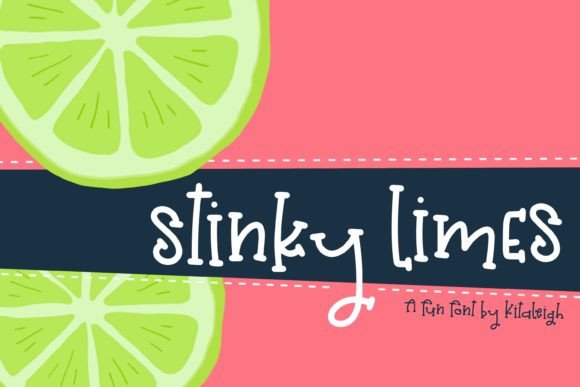
Introducing Stinky Limes Font, a captivating and creative serif font designed by Kitaleigh LLC. This hand-lettered gem is the perfect choice for anyone looking to infuse their designs with a unique and charming touch. With its delightful quirks and personality, Stinky Limes Font will take your projects to a whole new level.
Stand out from the crowd and give your designs an edge with this eye-catching serif font. Whether you're working on a branding project, creating eye-catching posters, or designing captivating social media graphics, Stinky Limes Font is the secret ingredient that will make your work shine.
One of the standout features of this font is its PUA encoding, allowing you to effortlessly access all the stunning glyphs and swashes it offers. Get creative and let your imagination run wild with the endless possibilities this font provides. Stand apart from the mundane and create designs that truly captivate.
Let Stinky Limes Font be your go-to choice for projects that require a touch of elegance and sophistication. Its versatility makes it perfect for a wide range of design applications, from invitations and stationery to logos and packaging. This font will add that extra dose of character that will make your work truly memorable.
Don't settle for the ordinary when you can have extraordinary. Elevate your designs with Stinky Limes Font and watch as your creations come to life with a vibrant and captivating energy. Download this font today and unlock a world of endless possibilities. Get ready to impress and make a lasting impression with Stinky Limes Font!